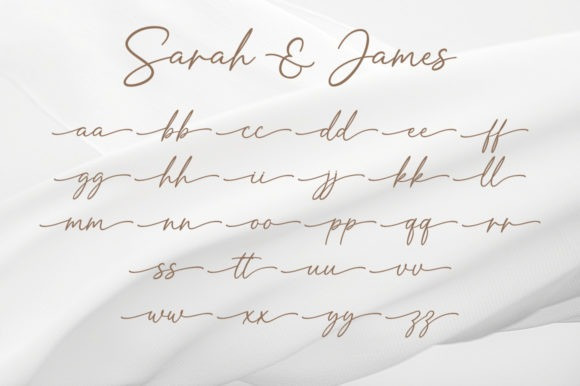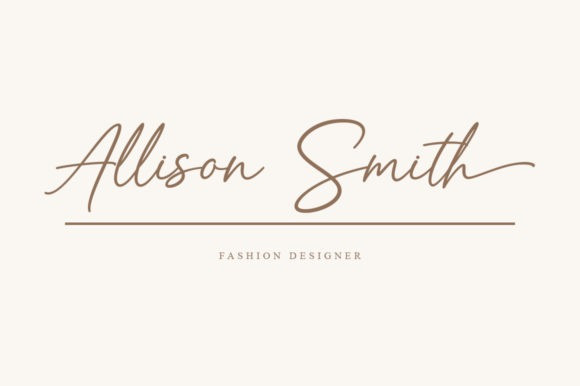
Sarah And James Handwritten Font is a beautiful script typeface carefully created with a touch of romantic. Fall for its ravishing style and use it to create gorgeous designs. This font is PUA encoded which means you can access all glyphs and swashes with ease!